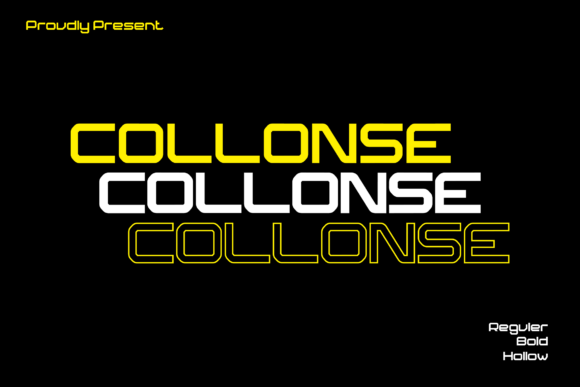
Collonse Font
Introducing Collonse, the font that will revolutionize your designs and leave an indelible mark on your audience. This exceptional sans serif font is a masterpiece crafted by the esteemed Liarttype, renowned for their impeccable typography skills. Collonse embodies a perfect blend of elegance and power, making it the ideal choice for a wide range of design projects.
With its clean lines, sharp angles, and subtle curves, Collonse exudes a timeless appeal that transcends fleeting trends. It possesses an undeniable presence that commands attention and captivates the eye. Whether you're creating captivating fashion magazines, designing eye-catching logos, crafting engaging landing pages, or producing stunning flyers, Collonse will elevate your work to new heights.
Its versatility extends beyond traditional print media, making it an exceptional choice for digital platforms as well. Collonse shines on photography, social media posts, and even websites, seamlessly adapting to any design aesthetic. It brings a touch of sophistication and professionalism to your online presence, ensuring that your brand makes a lasting impression in the vast digital landscape.
But Collonse is more than just a visually stunning font; it's a powerful tool that can evoke emotions and convey messages with unparalleled clarity. Its assertive nature makes it perfect for conveying important information, while its subtle elegance lends itself to creating designs that resonate with sophistication and grace.
Whether you're a seasoned designer or just starting your creative journey, Collonse is an essential addition to your font library. Its versatility and timeless appeal make it a font you'll reach for time and again, knowing that it will consistently deliver exceptional results.
So, why settle for ordinary fonts when you can have Collonse? Experience the transformative power of this remarkable sans serif font today and see how it can elevate your designs to new heights of brilliance.